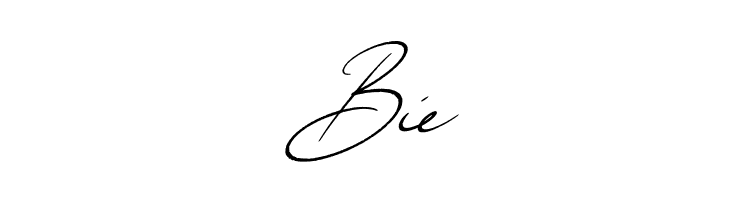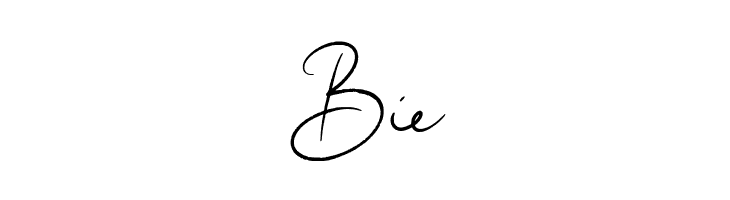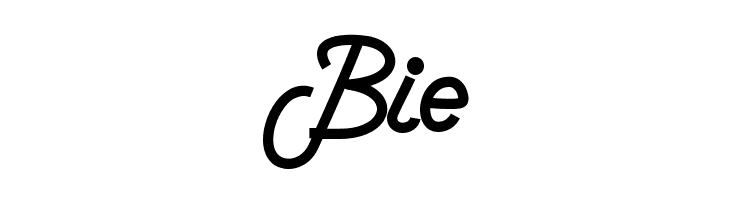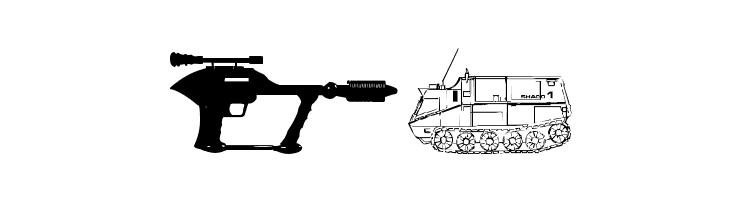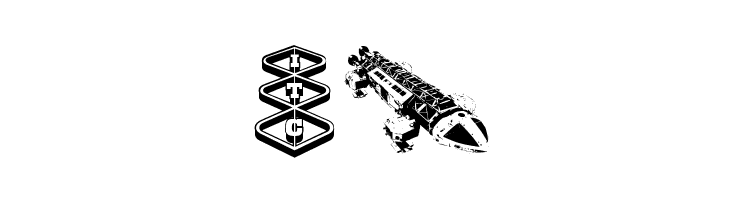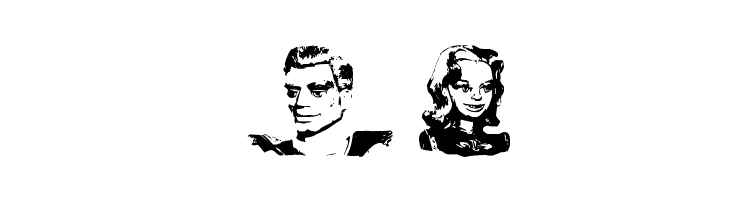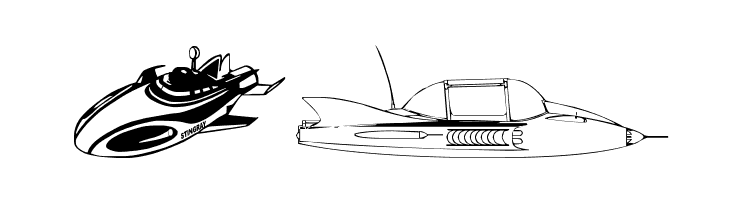
• Anderson Dings 2
( Fonts by Steve Ferrera )
A dingbat font with sci-fi vehicle illustrations and a bold display title.
• Anderson Dings 3
( Fonts by Steve Ferrera )
A bold, decorative dingbat font with illustrated character icons.
• Anderson Signature
A cursive, handwritten-style font with elegant, flowing lines.
• Anderson Signature Italic
An elegant, cursive font with a flowing, italic style, perfect for artistic and personal projects.
• Anderson Signature Swash
Elegant swashes with smooth, flowing strokes for decorative use.
• Anderson Silva
A dynamic blend of cursive elegance and bold modernity.
• Anderson Space1999 Dings
( Fonts by Steve Ferrera )
Decorative font with space-themed elements.
• Anderson UFO
( Fonts by Steve Ferrera )
Science fiction-themed pictogram and icon set with technical illustrations.
• Anderson Wakler
A graceful and elegant script font with flowing, cursive letters.
• Anderson Wakler Italic
A sophisticated script font with fluid, cursive strokes and an elegant italic slant.